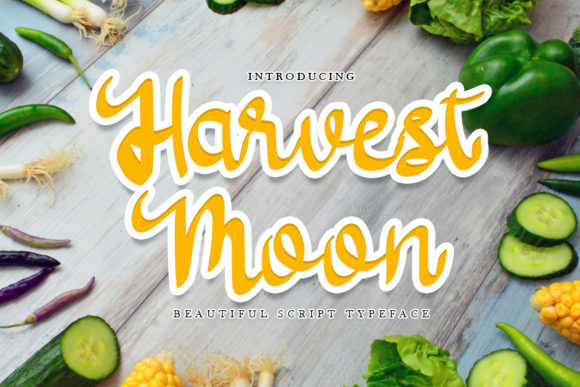
Are you looking for a stunning script font that will make your clothing logo stand out from the crowd? Look no further than the Harvest Moon Font family!
The Harvest Moon Font collection is an exquisite collection of flowing handwritten fonts that will embody your brand's unique style and personality. With its enchanting curves and subtle flair, this font family will add a touch of elegance and sophistication to any clothing logo.
Whether you're creating a logo for a casual, everyday line or a more formal, upscale brand, the Harvest Moon Font family has a font that is perfect for you. Each font in this collection is highly versatile, allowing you to create a unique and memorable logo that will perfectly reflect your brand's identity.
The Harvest Moon Font family is also incredibly easy to use, making it perfect for both beginner and experienced designers. Simply choose the font that you like best and start creating your logo! With the Harvest Moon Font family, you can be sure that your clothing logo will be one-of-a-kind and unforgettable.